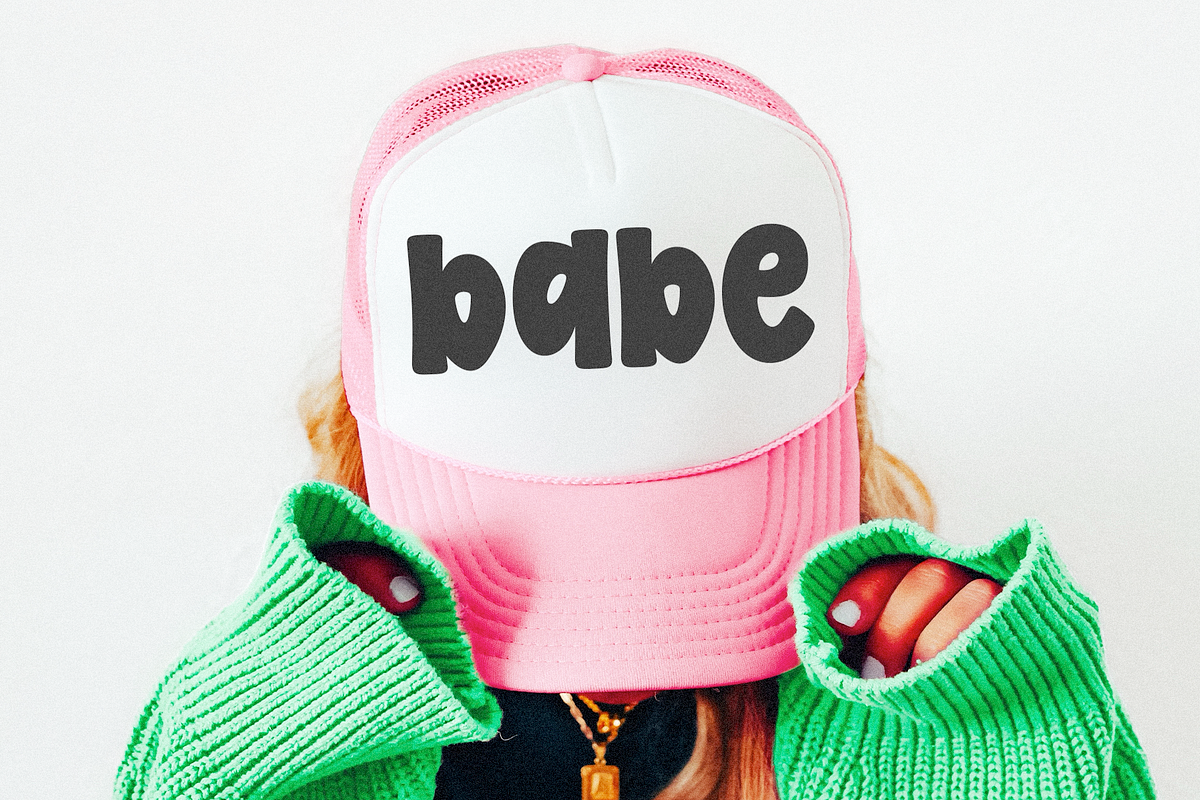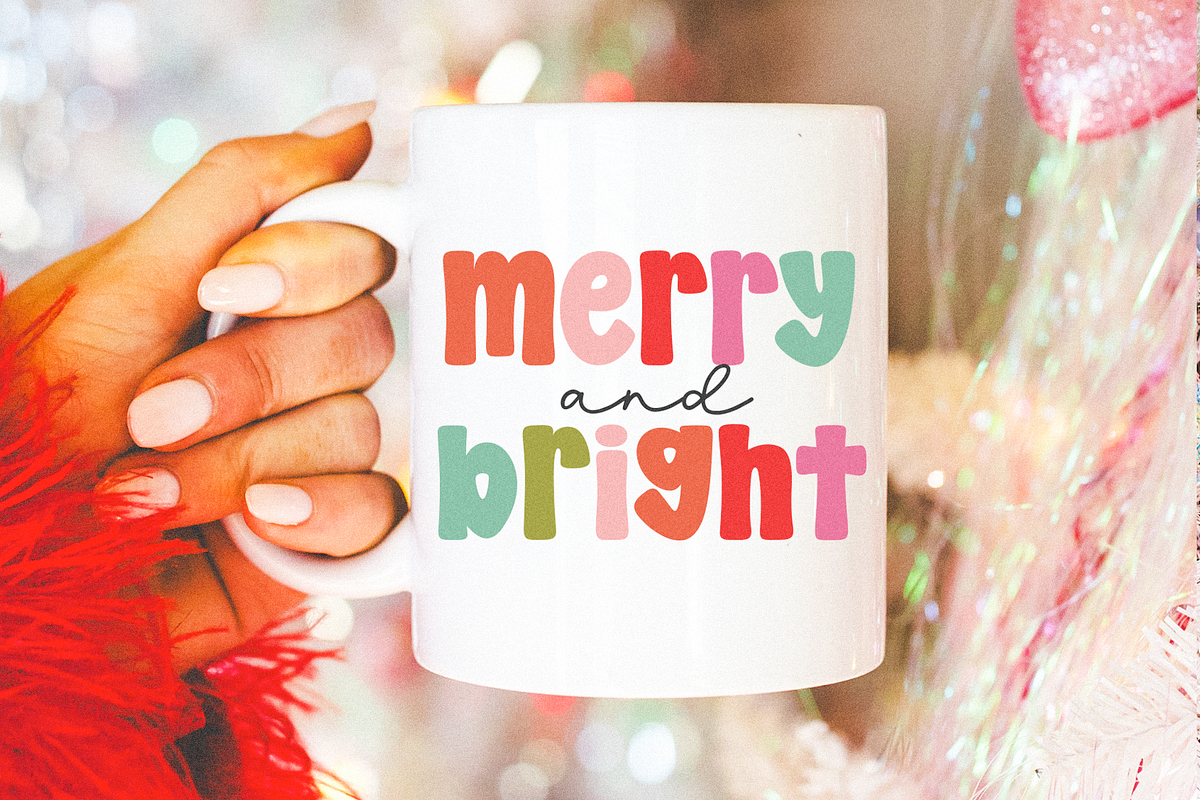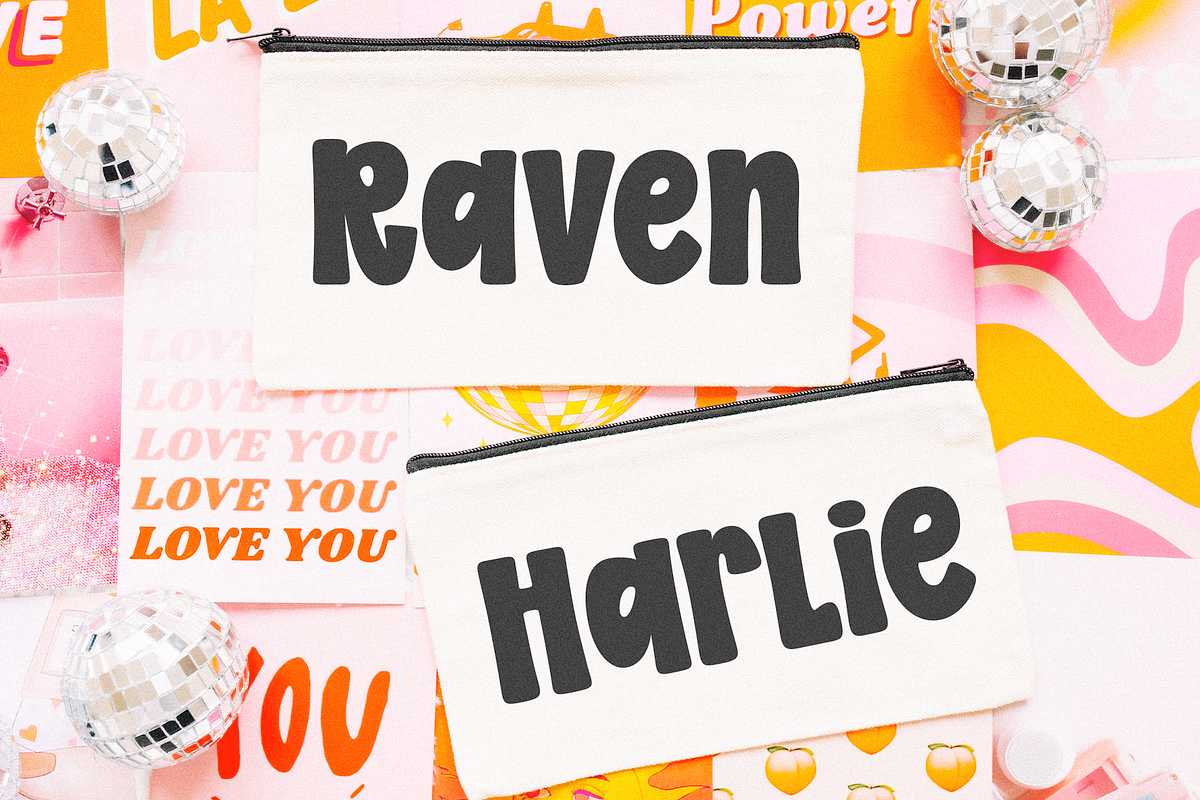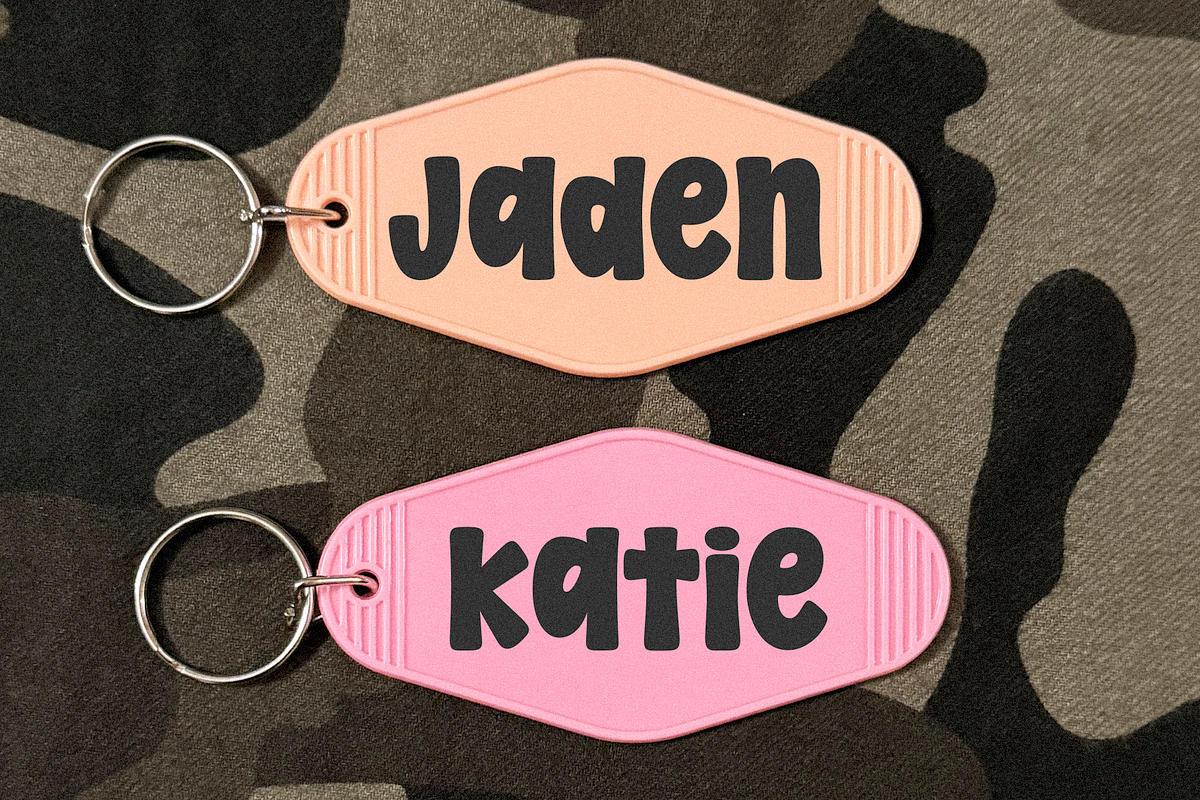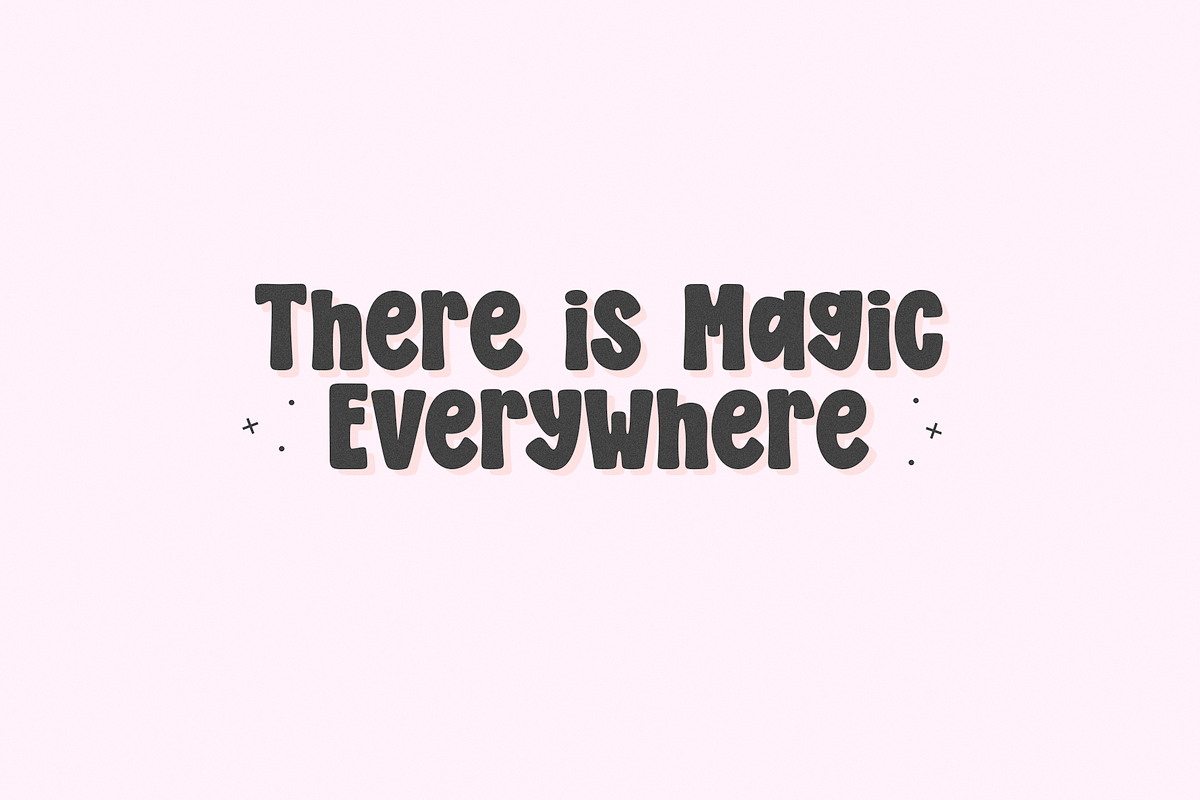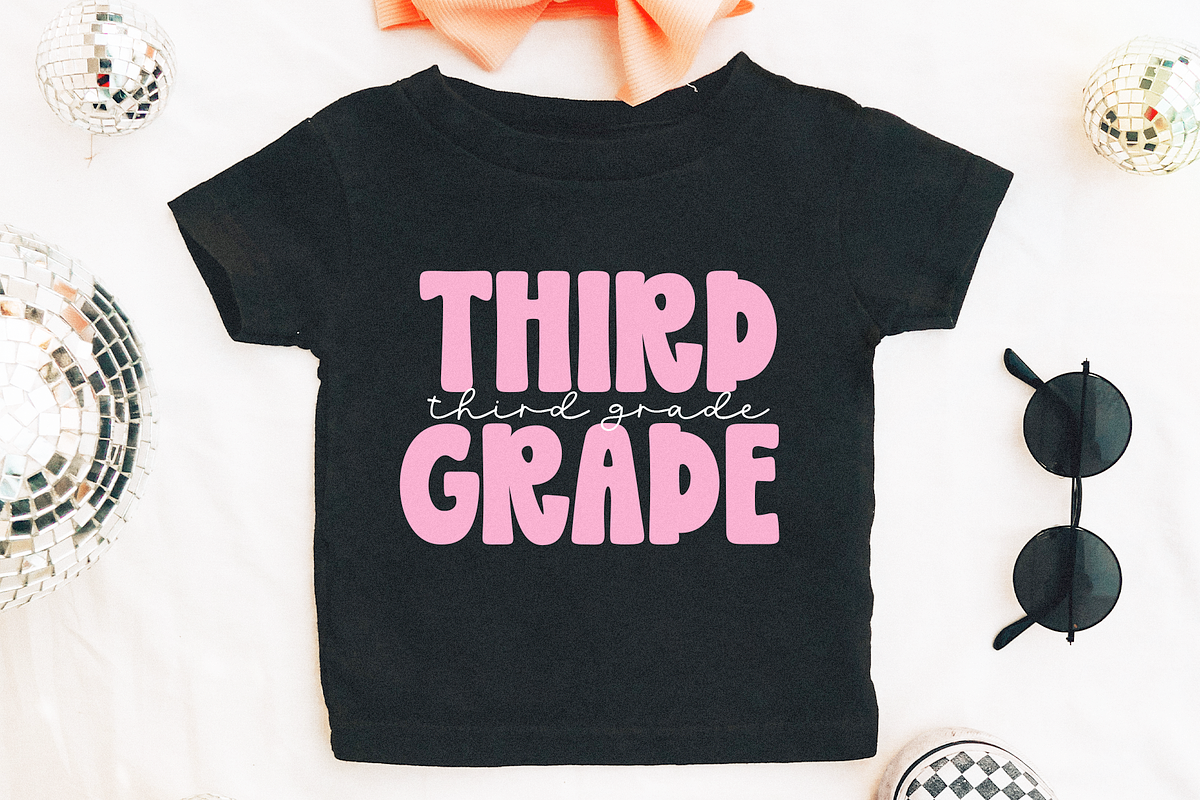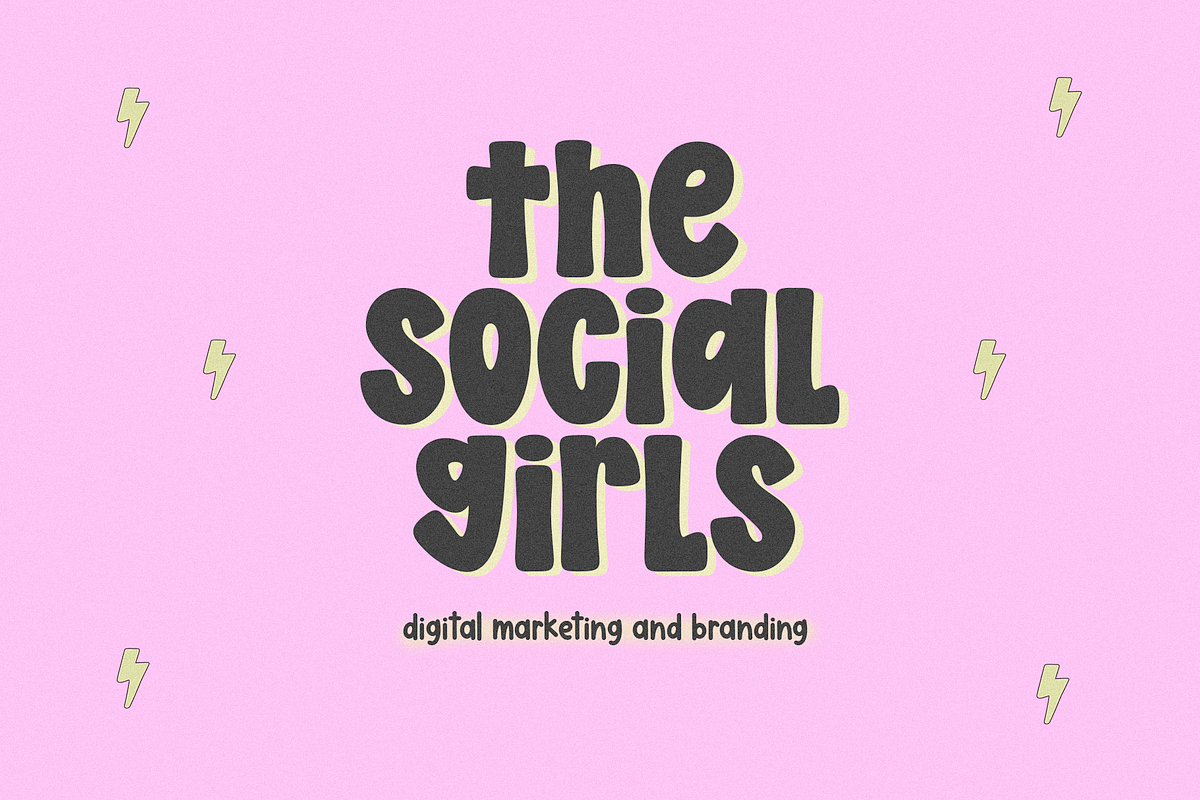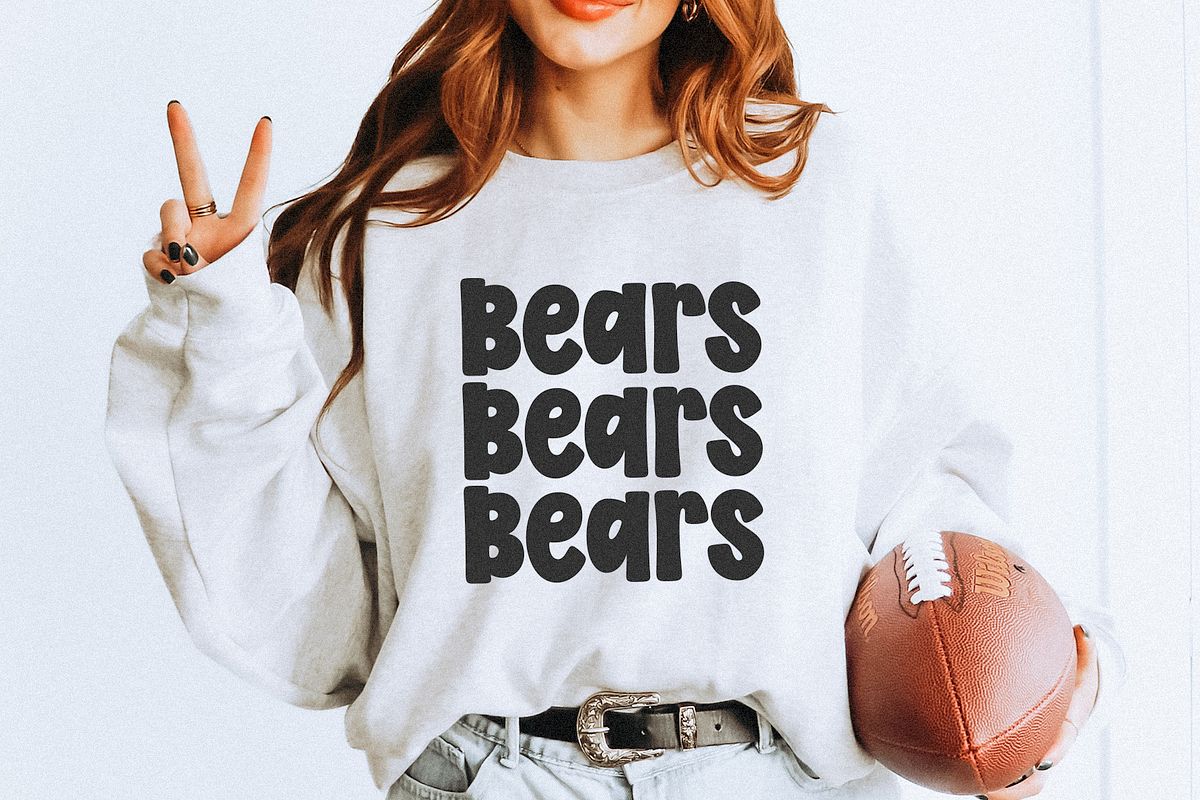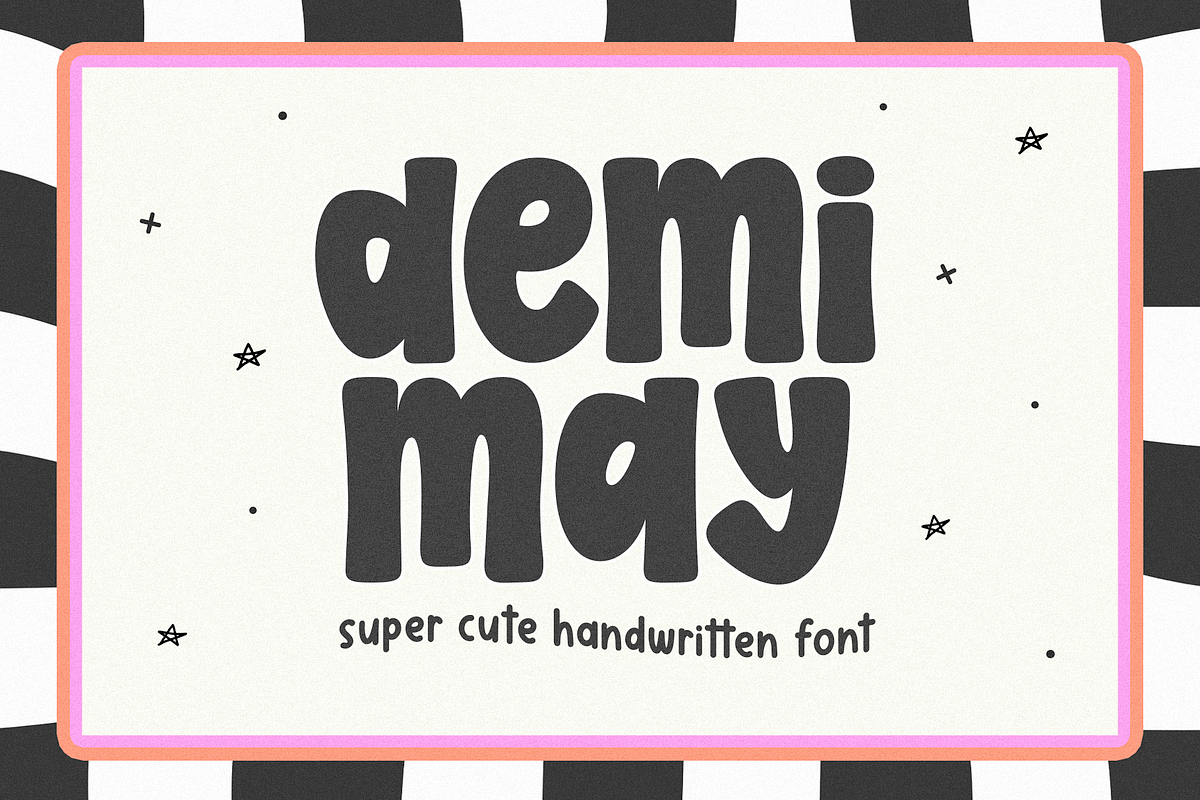
Demi May | Trendy Font
Demi May is a cute and bubbly handwritten font.
This font is perfect for logos, quotes, painted banners, sports shirts, cricut projects, canva, teachers, bulletin boards and more!